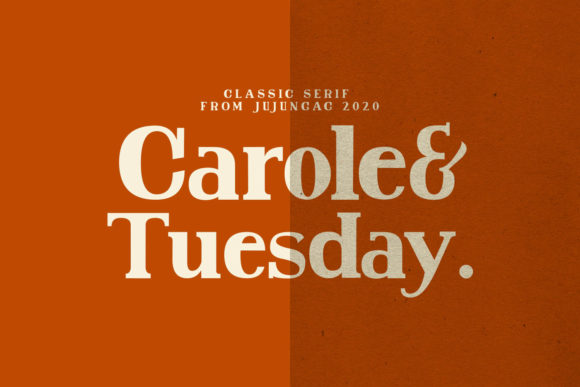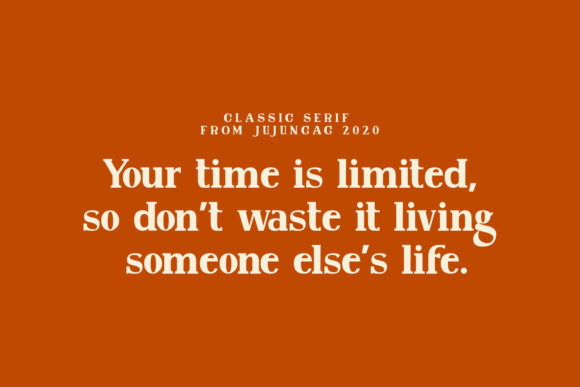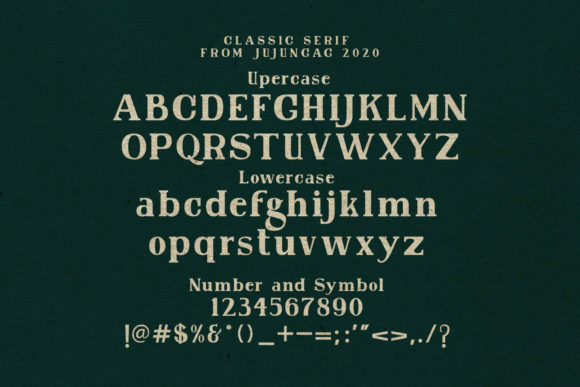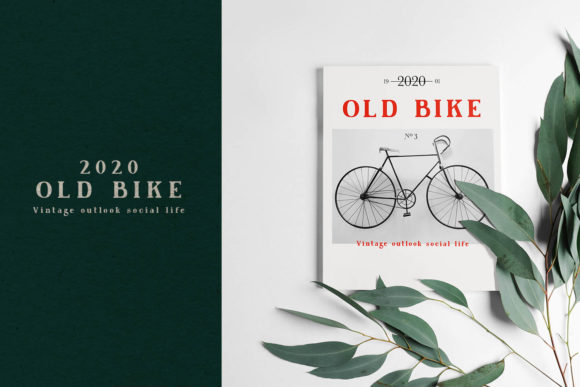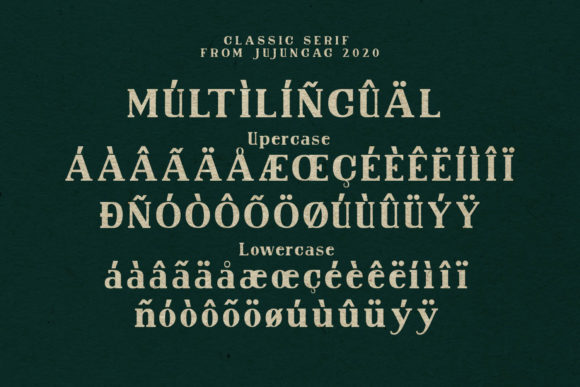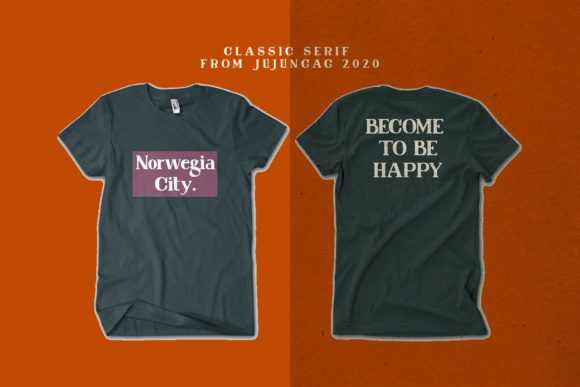
Introduction to Norwegia Classic Font
Have you ever been working on a creative project, pouring your heart and soul into it, only to feel like something’s missing? That’s when you stumble upon the perfect design resource – a font that elevates your entire concept. For many designers, that game-changing font is the Norwegia Classic Font.
Its simple yet elegant design makes it an ideal choice for a wide range of projects. Whether you’re working on a brochure with a transparent background or a logo for a brand, the Norwegia Classic Font is sure to make your design stand out. And the best part? It’s available for free download, making it an accessible high-quality design resource for designers of all levels.
So, what makes the Norwegia Classic Font so valuable to designers? Its versatility and timeless appeal, for starters. This font is more than just a design element – it’s a key to unlocking the full potential of your creative ideas.
Key Features of Norwegia Classic Font
- High-quality design resource perfect for creative projects and designs, offering a unique aesthetic.
- Transparent background, allowing for seamless integration with various design elements.
- Designed to provide a classic, timeless look with a touch of elegance.
- Includes a range of characters, including uppercase and lowercase letters, numbers, and special characters.
Honest Review: Norwegia Classic Font
As a designer, I’m always on the lookout for high-quality design resources to elevate my creative projects. Recently, I had the chance to try out the Norwegia Classic Font, and I must say it’s been a game-changer.
- ✨ Elegant and sophisticated design aesthetic, perfect for luxury brands or high-end publications
- ✨ High-quality vector graphics that can be scaled up or down without losing any detail
- ⚠️ Limited font combinations, which can make it difficult to achieve a specific look or feel
- ⚠️ Some users may find the transparent background a bit tricky to work with, especially if you’re new to font design
Overall, I’m really impressed with the Norwegia Classic Font. Its high-quality design and free download option make it a valuable addition to any designer’s toolkit. With a bit of creativity and experimentation, I’m confident that even the most ambitious design projects can be brought to life with this font.
The Norwegia Classic Font is a high-quality design resource ideal for creative projects. It’s available for free download and features a transparent background, making it easy to incorporate into various design elements.
Getting the Most Out of Norwegia Classic Font
To get the most out of the Norwegia Classic Font, try using it in combination with other design elements, such as graphics and images. Experiment with different font sizes, colors, and arrangements to create visually appealing designs.
The Norwegia Classic Font is suitable for a variety of design projects, including:
- Brand identity design